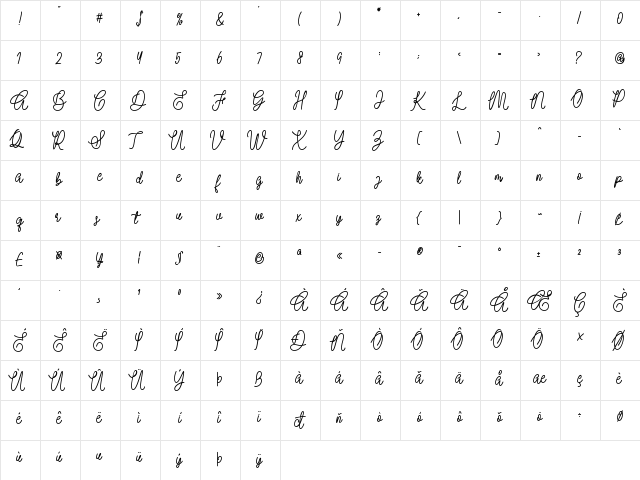
Arfellion Regular
Design Context for Arfellion Typeface
Arfellion is a composed and adaptable typeface that performs quietly and consistently across a wide range of design contexts.